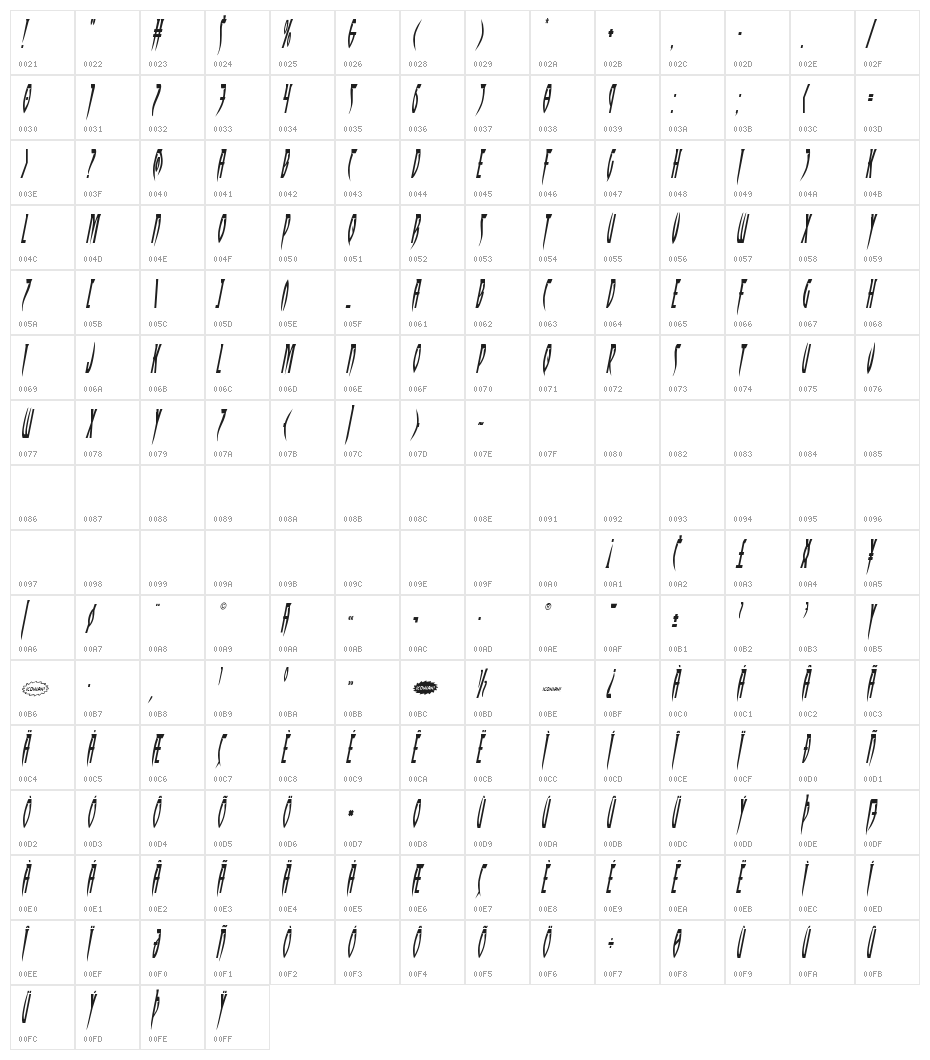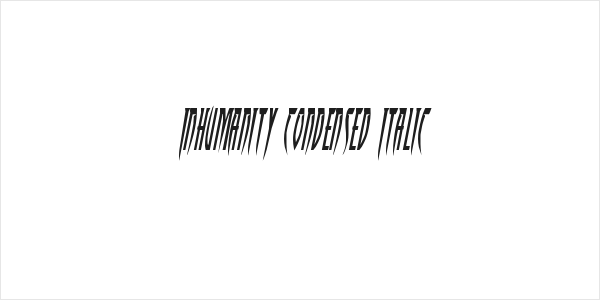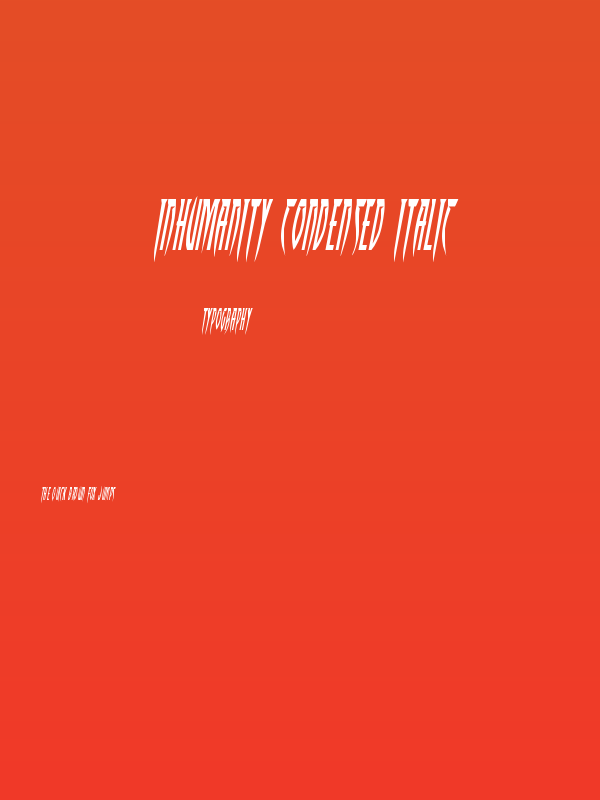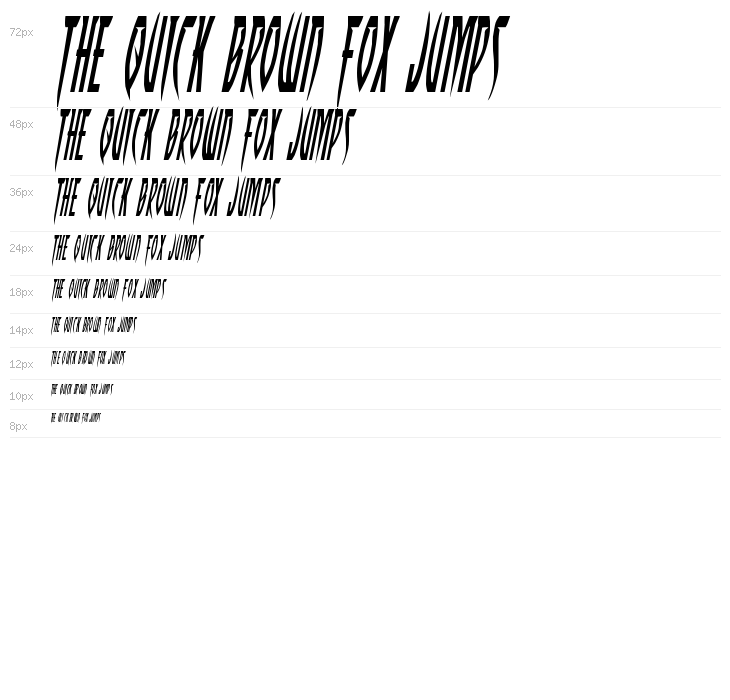
Inhumanity Condensed Italic Font
Inhumanity Condensed Italic Description
This font features a striking, angular design with a condensed and italicized style. The characters are sharply defined with elongated vertical strokes and minimal curves, giving it a futuristic and aggressive appearance. The uppercase and lowercase letters maintain a consistent slant, enhancing the dynamic feel. The numbers and special characters follow the same angular and condensed aesthetic, ensuring uniformity across all glyphs. This font's unique style makes it stand out, ideal for projects that require a bold and modern touch.
| Overall Style | Futuristic, Aggressive |
| Proposed Projects | Ideal for sci-fi themed posters, video game titles, edgy branding, and dynamic logo designs. |